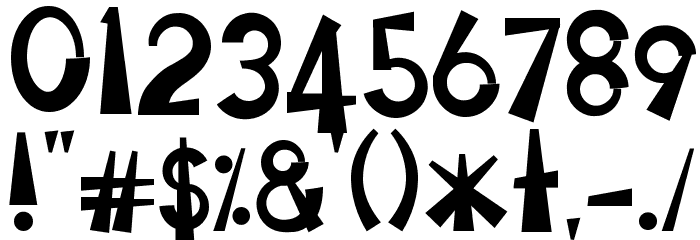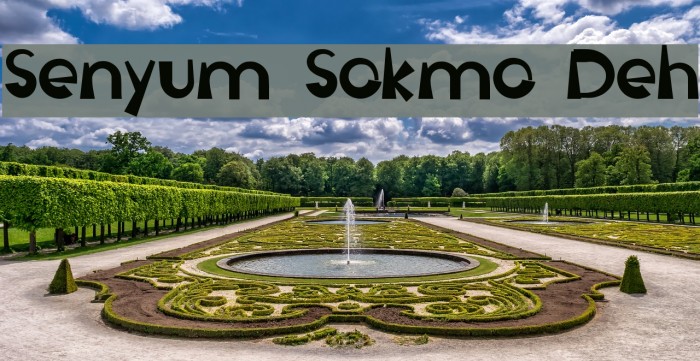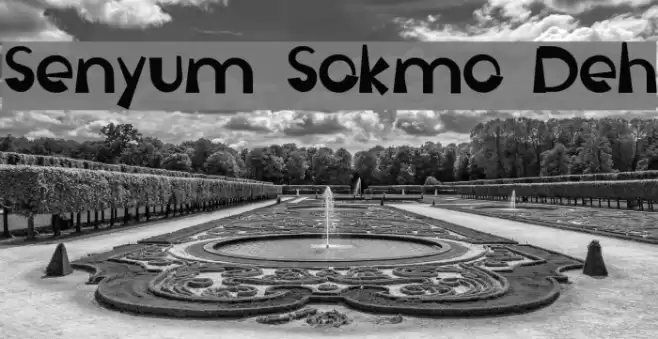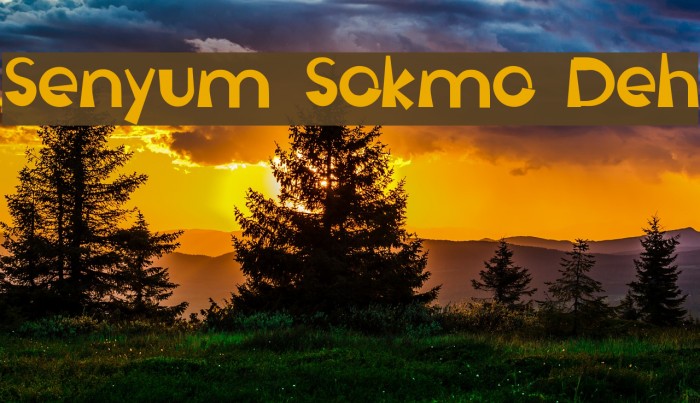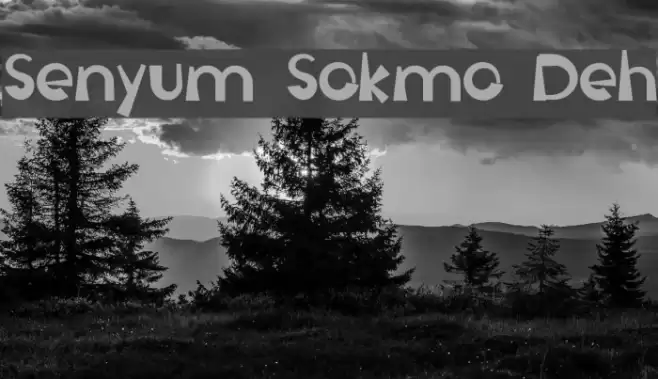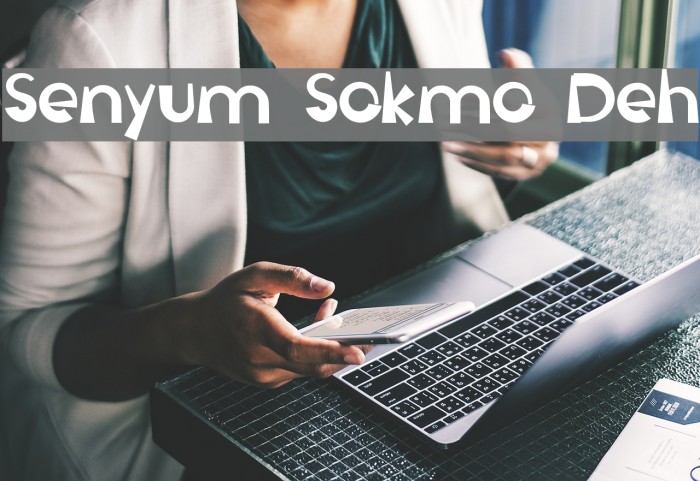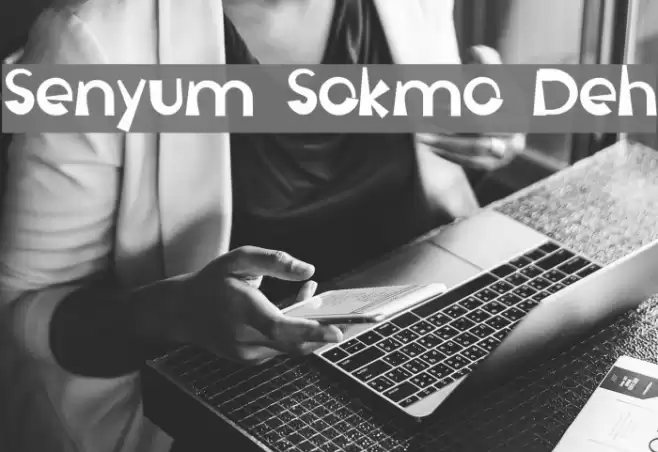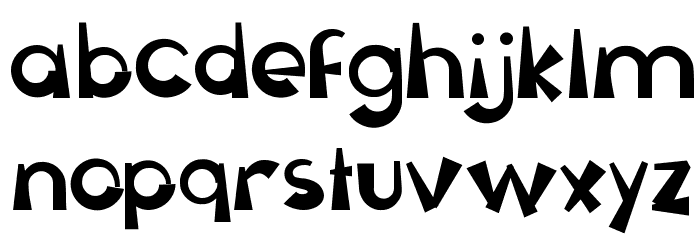
Senyum Sokmo Deh Font
This font features a playful and whimsical design, characterized by its bold and irregular shapes. The letters have a dynamic and energetic appearance, with varying stroke thicknesses and unique angles that give it a lively and animated feel. The uppercase and lowercase letters maintain a consistent style, while the numbers and special characters complement the overall aesthetic. This font stands out with its distinctive and unconventional look, making it ideal for creative and fun projects.
A playful and whimsical font with bold, irregular shapes and dynamic strokes.
• Proposed Projects: Ideal for children's books, playful branding, party invitations, and creative posters.
• Category: Decorative/Display
• Overall Style: Playful
• Use Case: Headlines, Logos, Posters